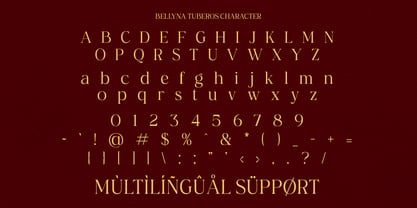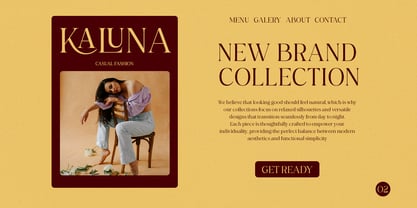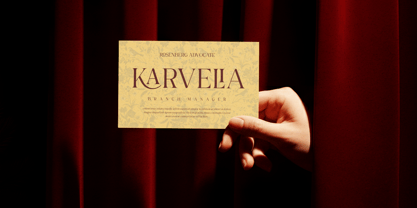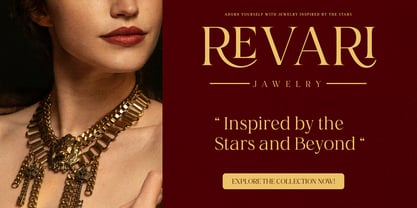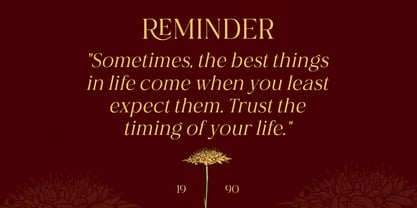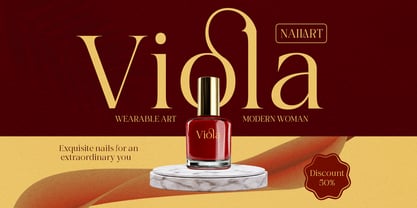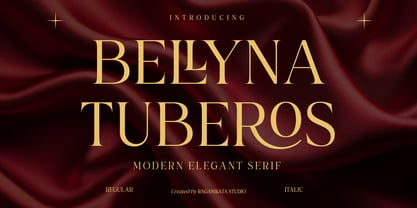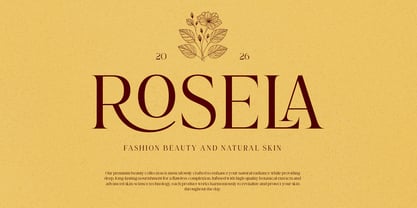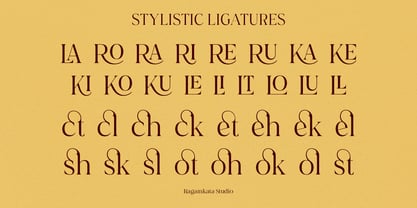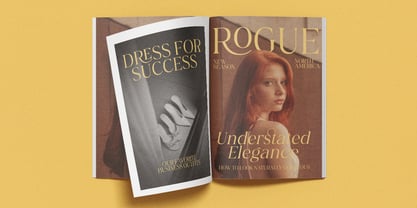
Bellyna Tuberos
La famille de polices Bellyna Tuberos a été conçue par Yogiswhara Dio Prakoso Riadi et publiée par RagamKata. Bellyna Tuberos contient 2 styles et options de package familial. En savoir plus sur cette famille
Bellyna Tuberos is a modern, elegant serif font crafted to deliver a refined and luxurious typographic presence. Featuring graceful letterforms, high-contrast strokes, and sophisticated curves, this typeface encapsulates the essence of contemporary elegance. The design harmonizes classic serif beauty with a modern aesthetic, making it ideal for high-end visual identities. Perfectly suited for luxury branding, fashion editorials, logo design, wedding invitations, beauty packaging, and premium marketing materials, Bellyna Tuberos infuses a sense of prestige and sophistication into any design project. Its stylish structure ensures that headlines and brand names stand out while maintaining a timeless and polished appearance. Whether utilized for fashion brands, upscale packaging, elegant websites, or editorial layouts, Bellyna Tuberos enables designers to create a distinctive and memorable visual experience. This font embodies modern luxury typography, making it an excellent choice for projects that demand elegance, style, and professional appeal.